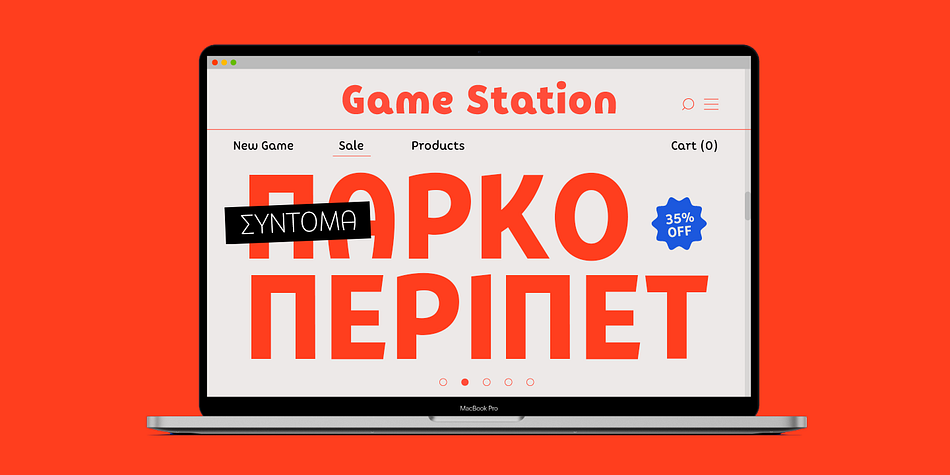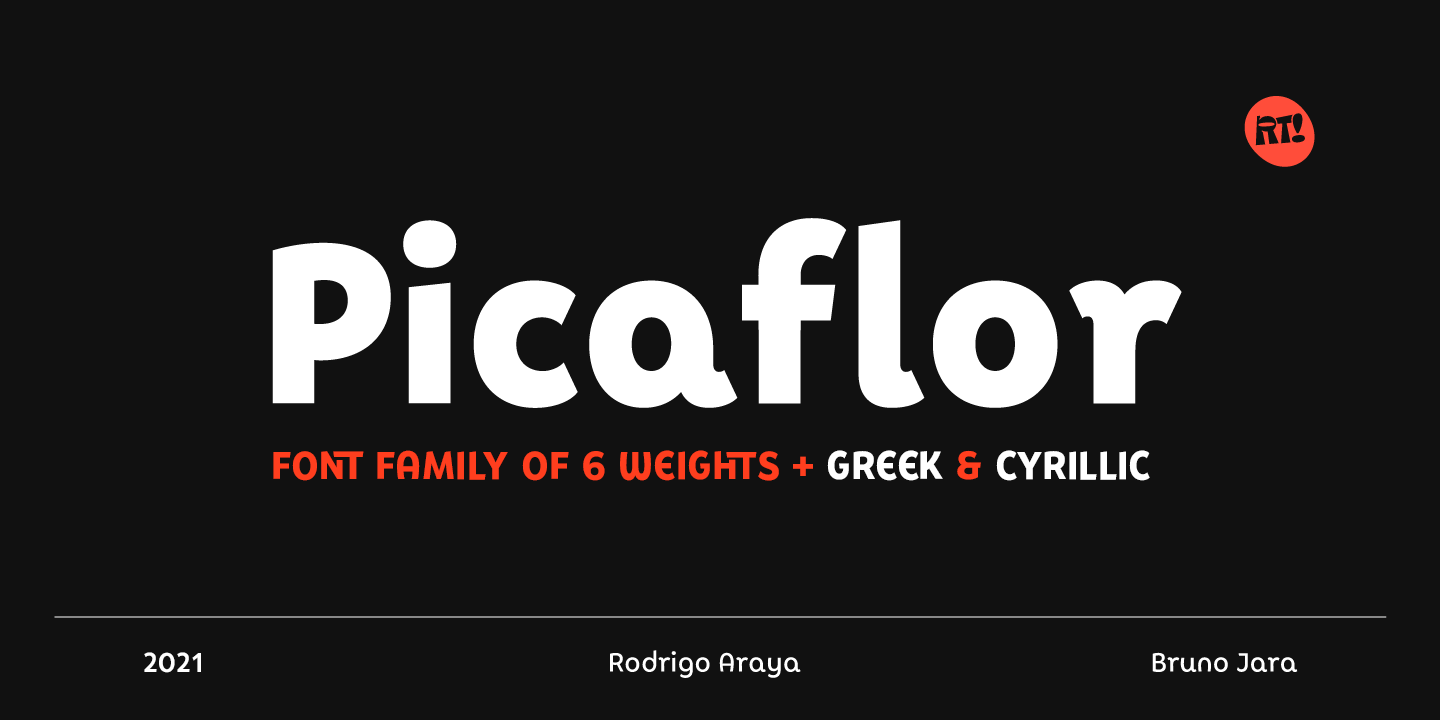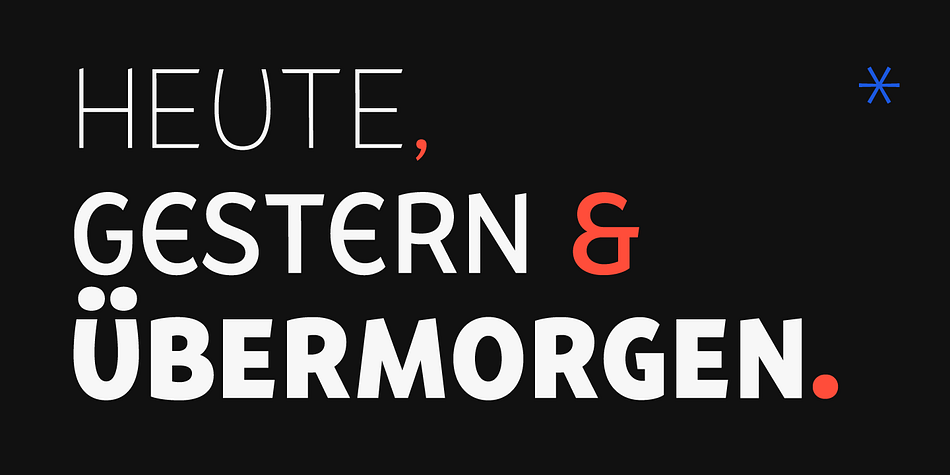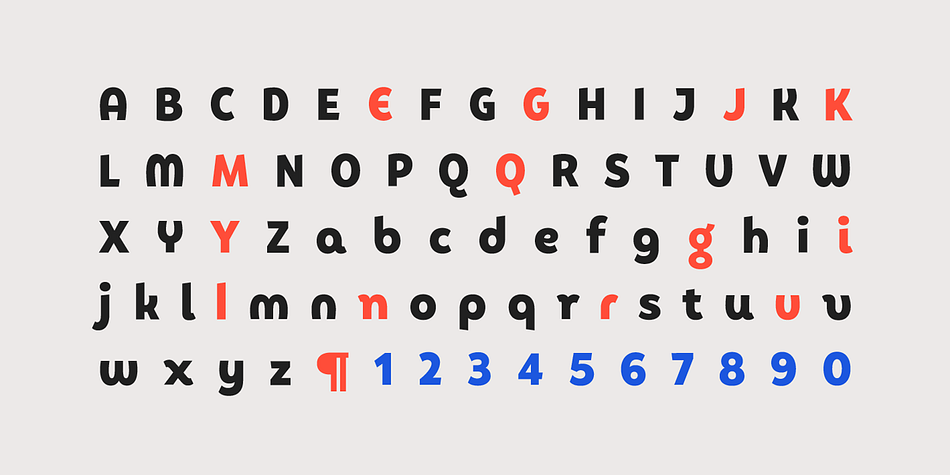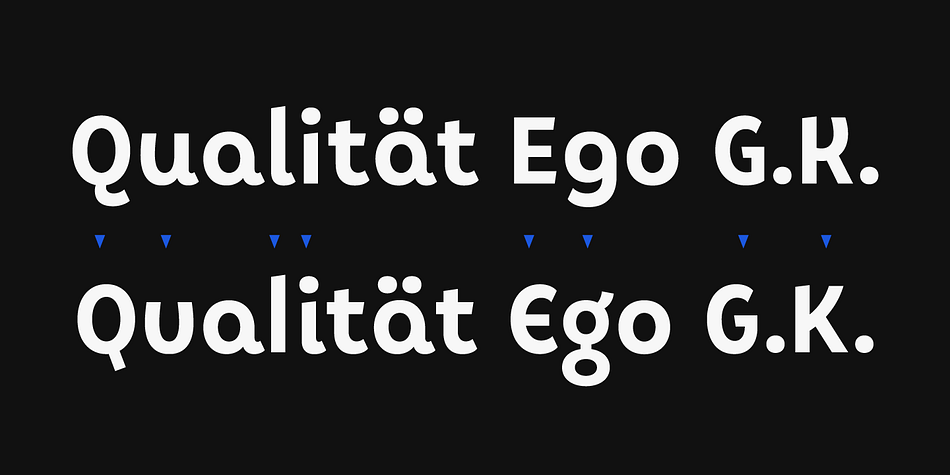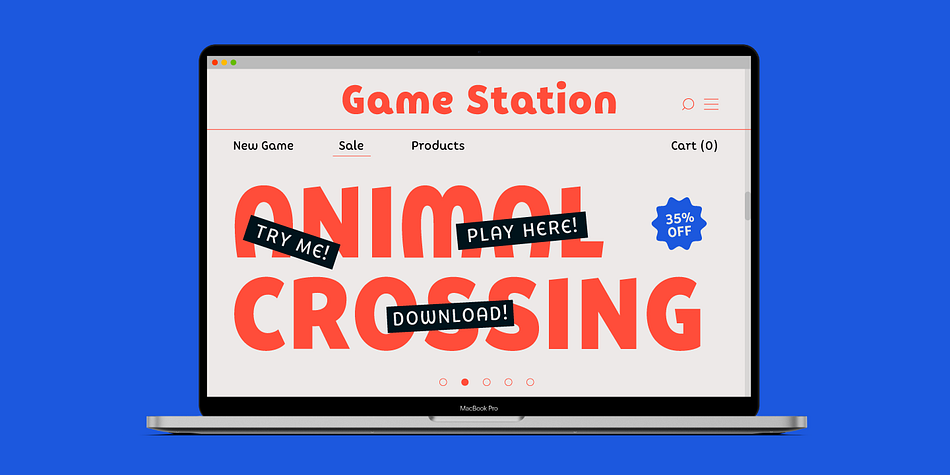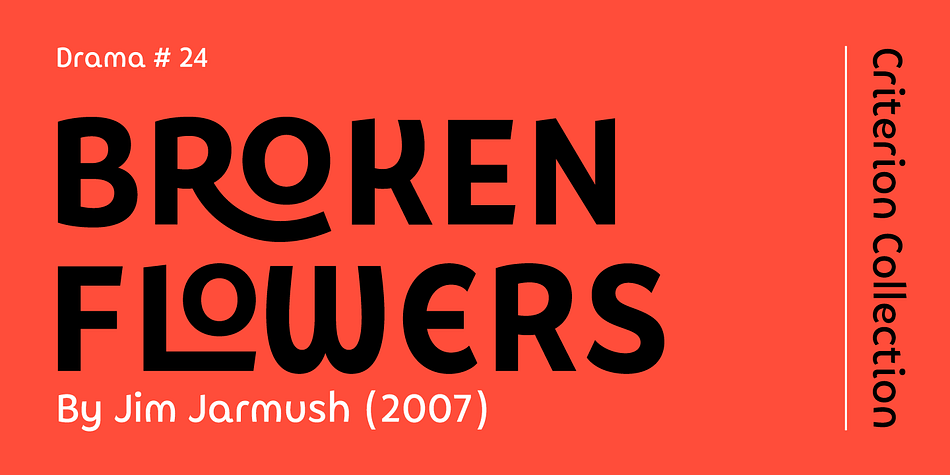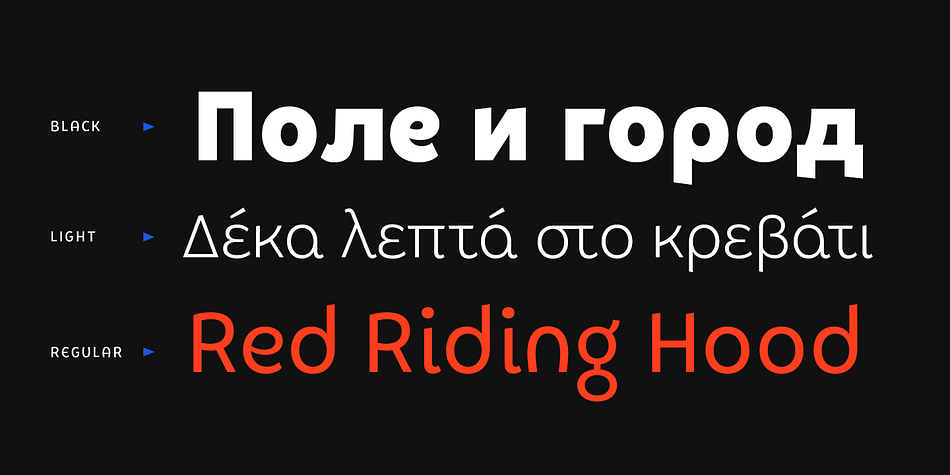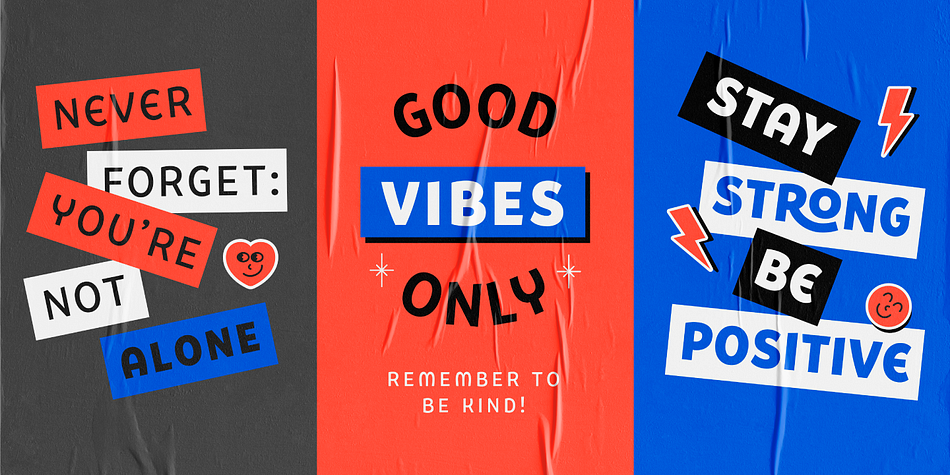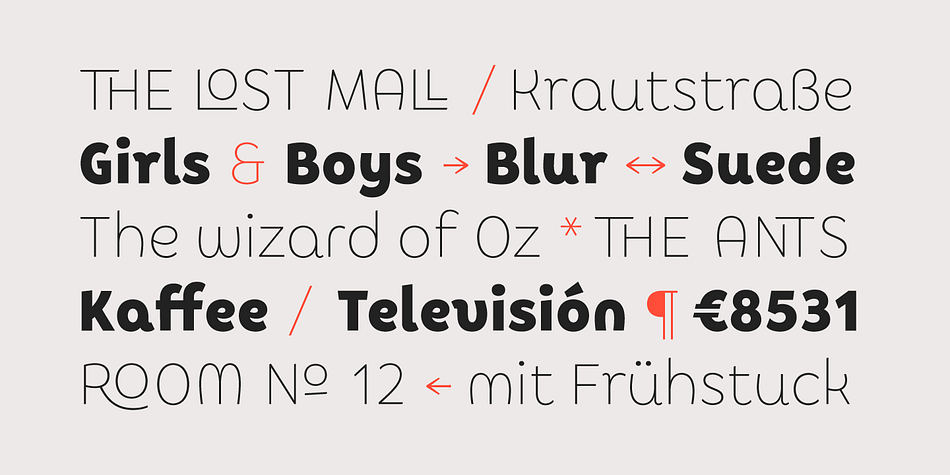
Designed by Rodrigo Salas and Bruno Jara, Picaflor is a display sans and sans serif font family. This typeface has six styles and was published by Rodrigo Typo.
Picaflor is a sans typeface family perfect for titles, it contains 6 weights from thin to Black in addition to Greek and cyrillic alphabet with many alternatives from ligatures and letters, enjoy it!